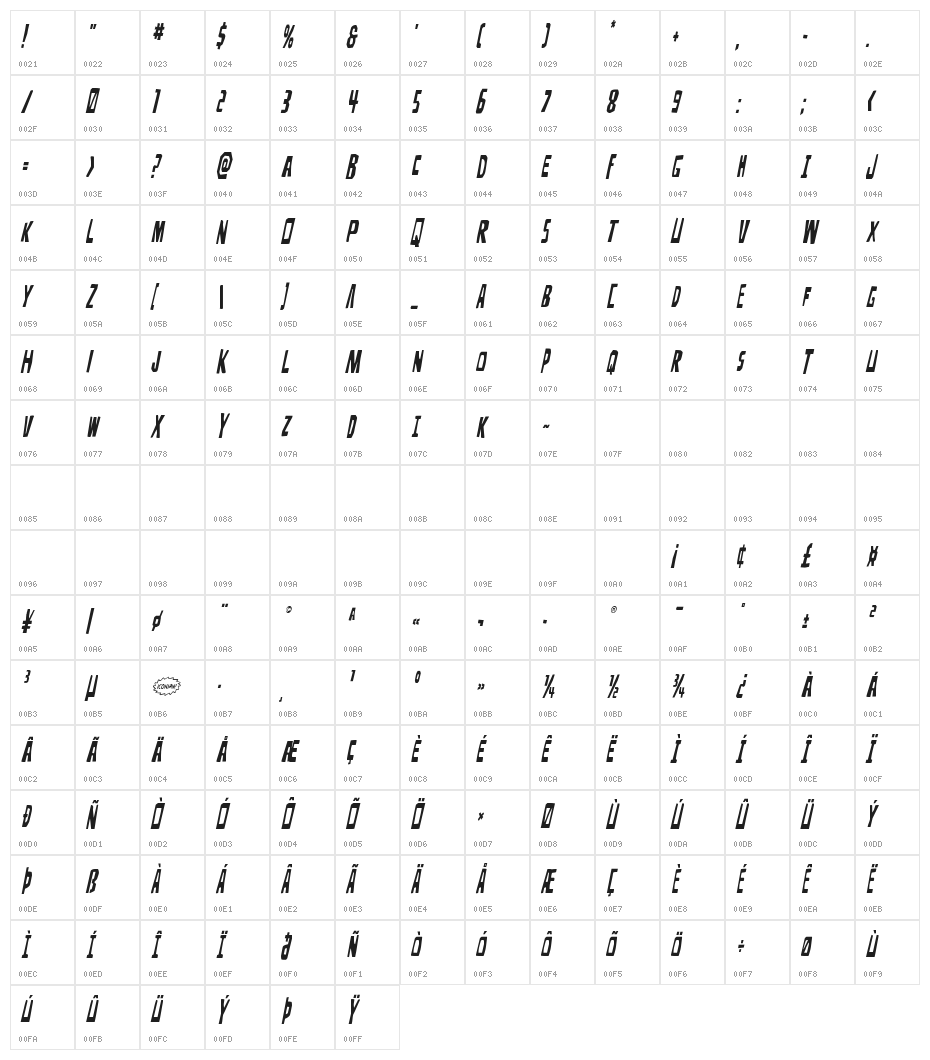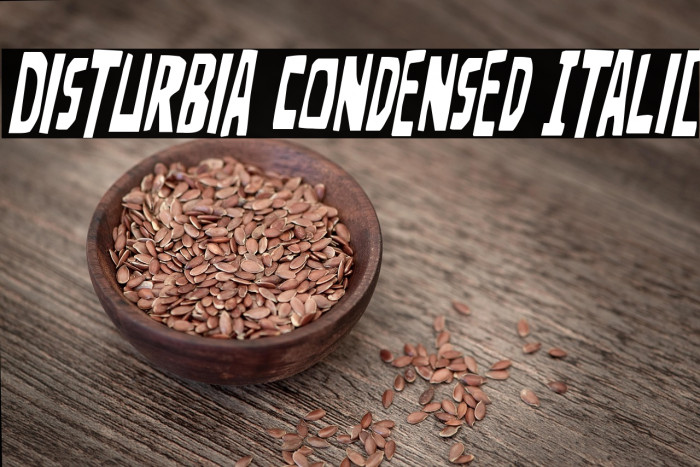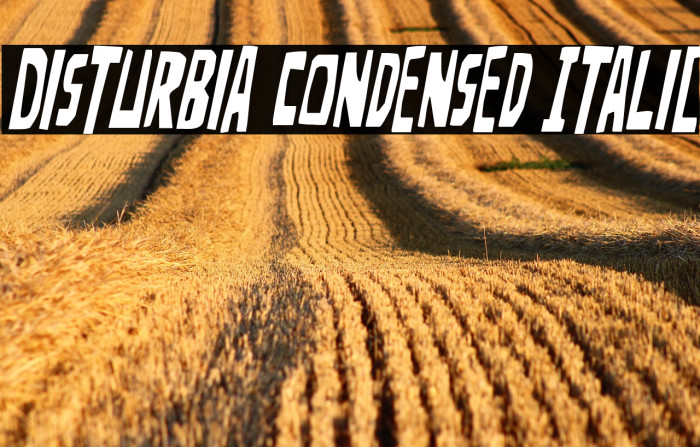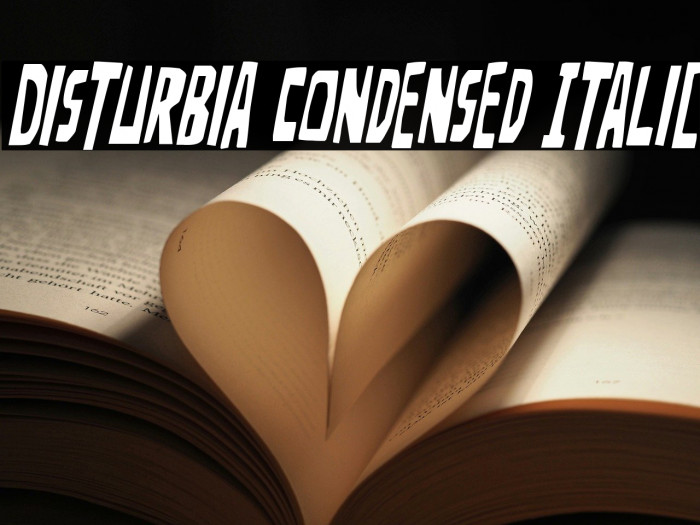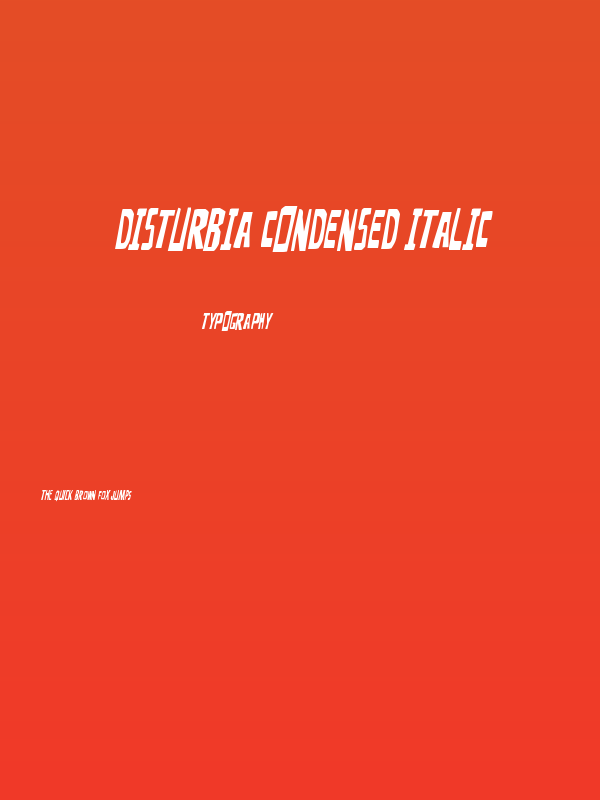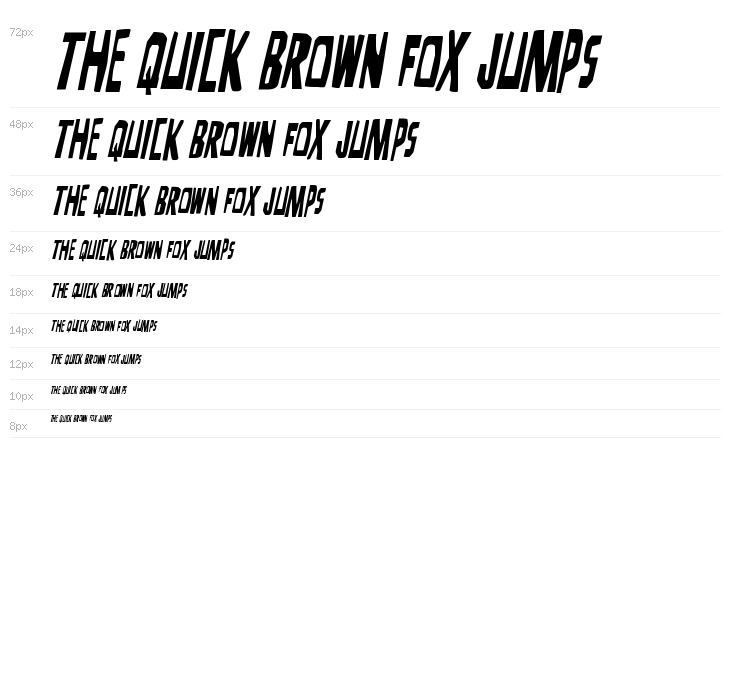
Disturbia Condensed Italic Font
Disturbia Condensed Italic Description
This font features a bold, condensed style with a distinct italic slant, giving it a dynamic and energetic appearance. The characters are tightly spaced, enhancing the compact and impactful look. The strokes are thick and consistent, providing a strong visual presence. Its angular design and sharp edges contribute to a modern and edgy feel, making it suitable for attention-grabbing headlines or branding. The uppercase and lowercase letters maintain a uniform height, ensuring readability while adding a unique flair. The numerals and special characters are designed to match the overall aesthetic, ensuring consistency across all text elements.